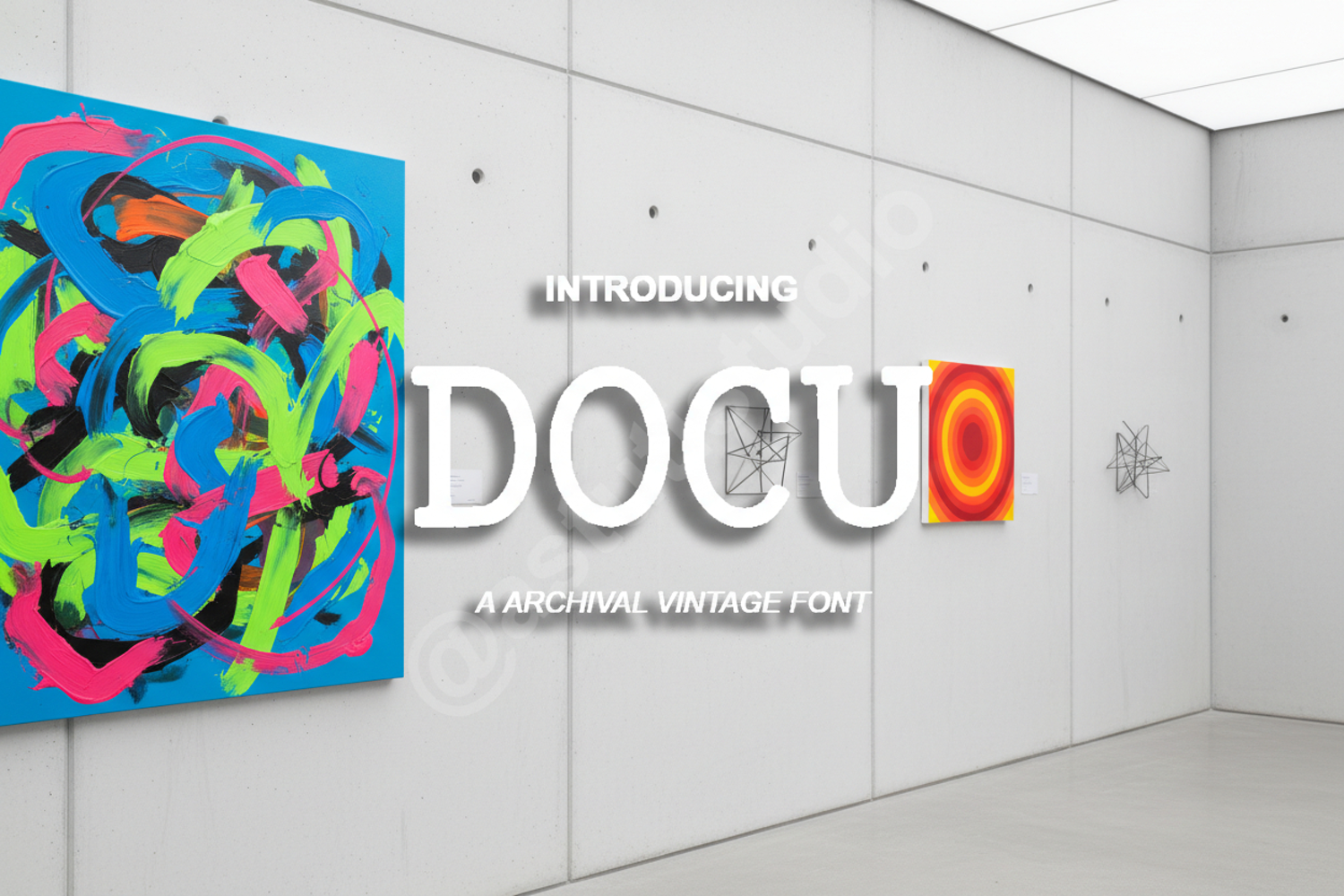
Docu - Professional Modern Sans Serif
Docu
Docu is a premium sans serif typeface meticulously crafted for designers who demand clarity, precision, and a contemporary aesthetic. With its balanced proportions and clean lines, Docu offers a sophisticated look that ensures your content remains legible and stylish across all mediums. Whether you are building a high-end brand or designing a technical manual, this font provides the professional edge your projects deserve.
- Corporate Branding: Establish a trustworthy and modern identity.
- Editorial Design: Perfect for magazine layouts, brochures, and reports.
- Web Design: High legibility for user interfaces and digital content.
- Minimalist Packaging: Enhance product presentation with clean typography.
- Professional Stationery: Ideal for business cards, letterheads, and formal documents.